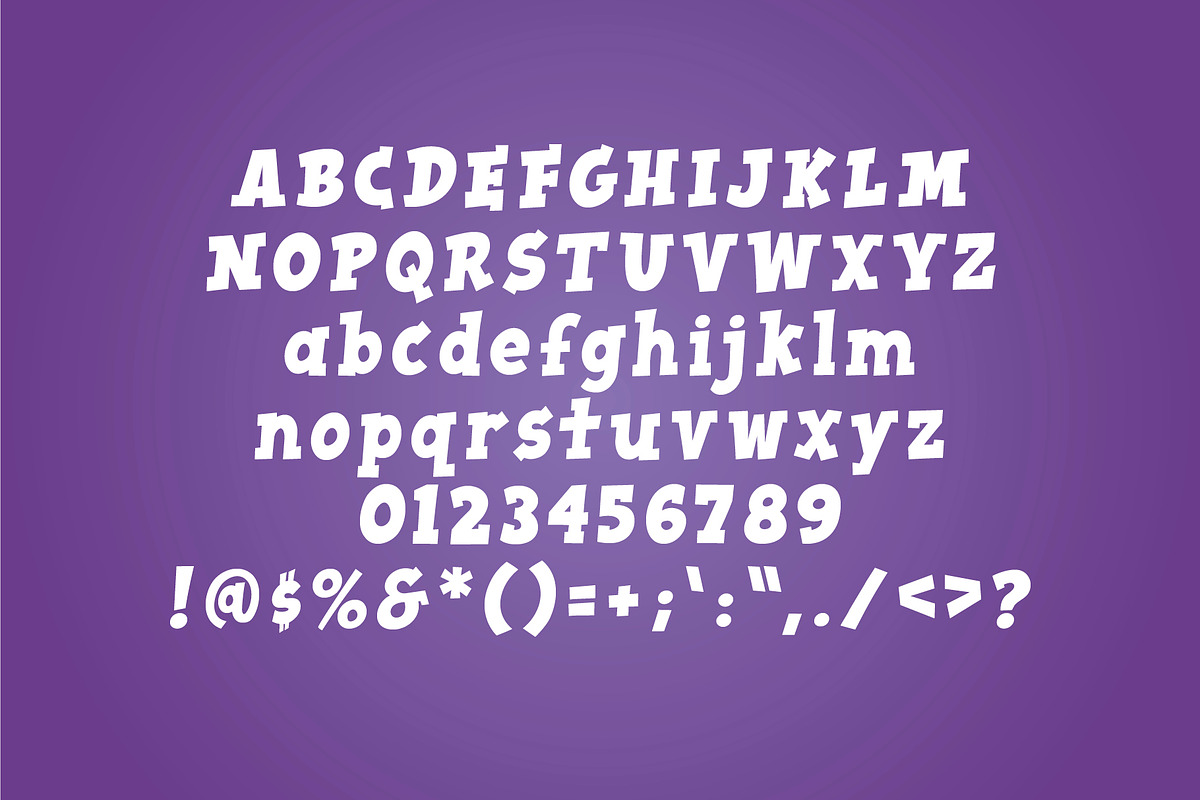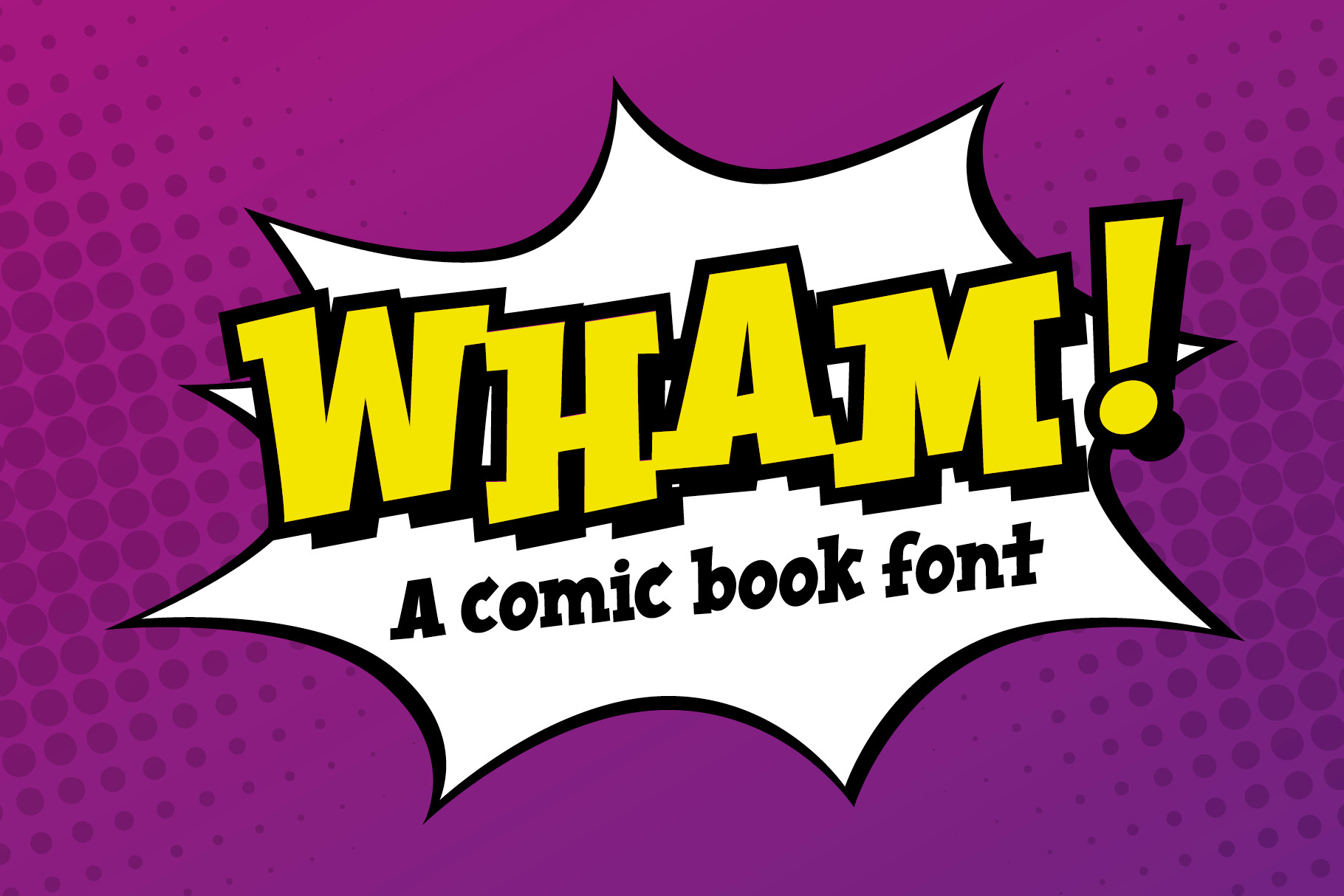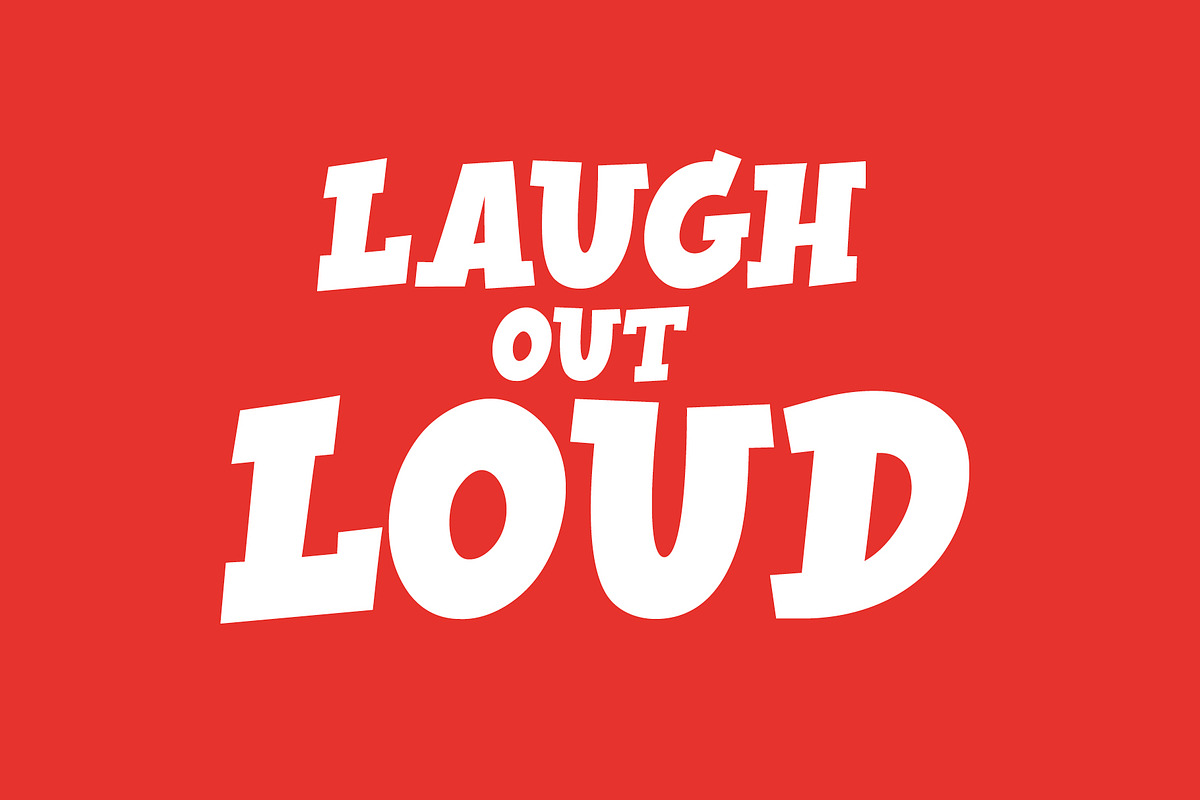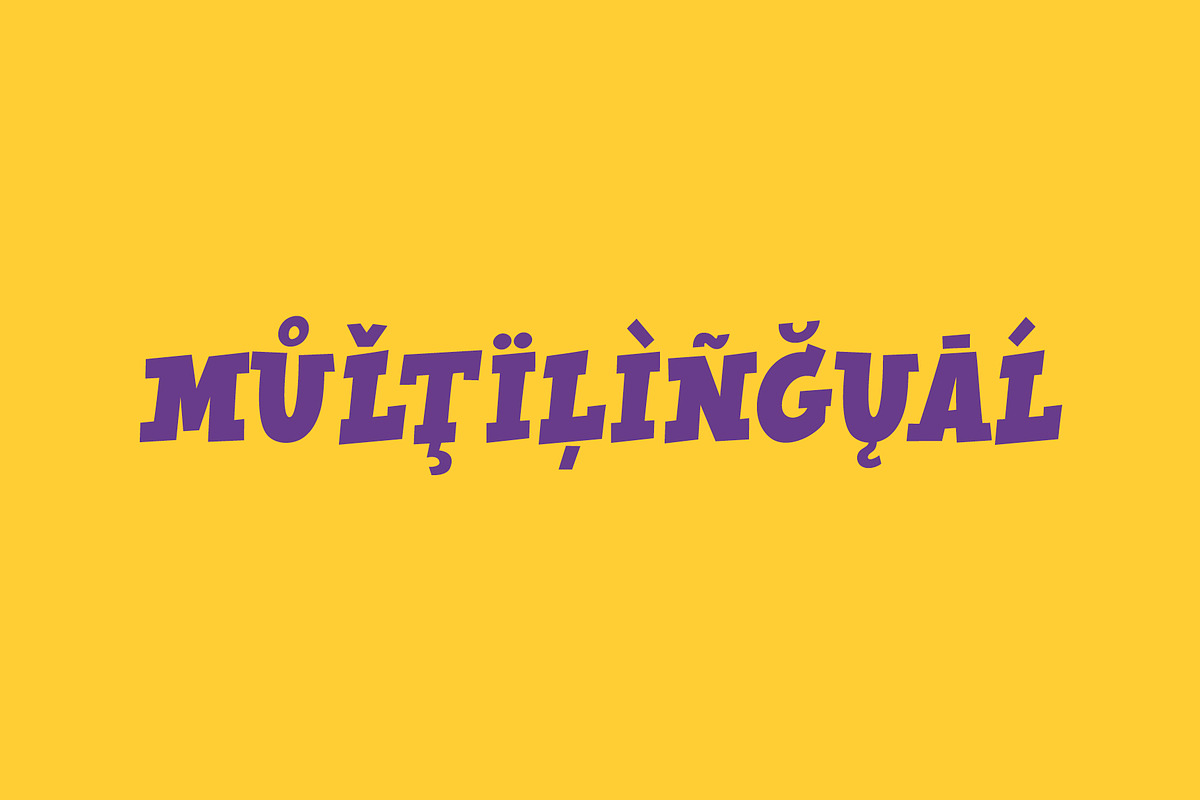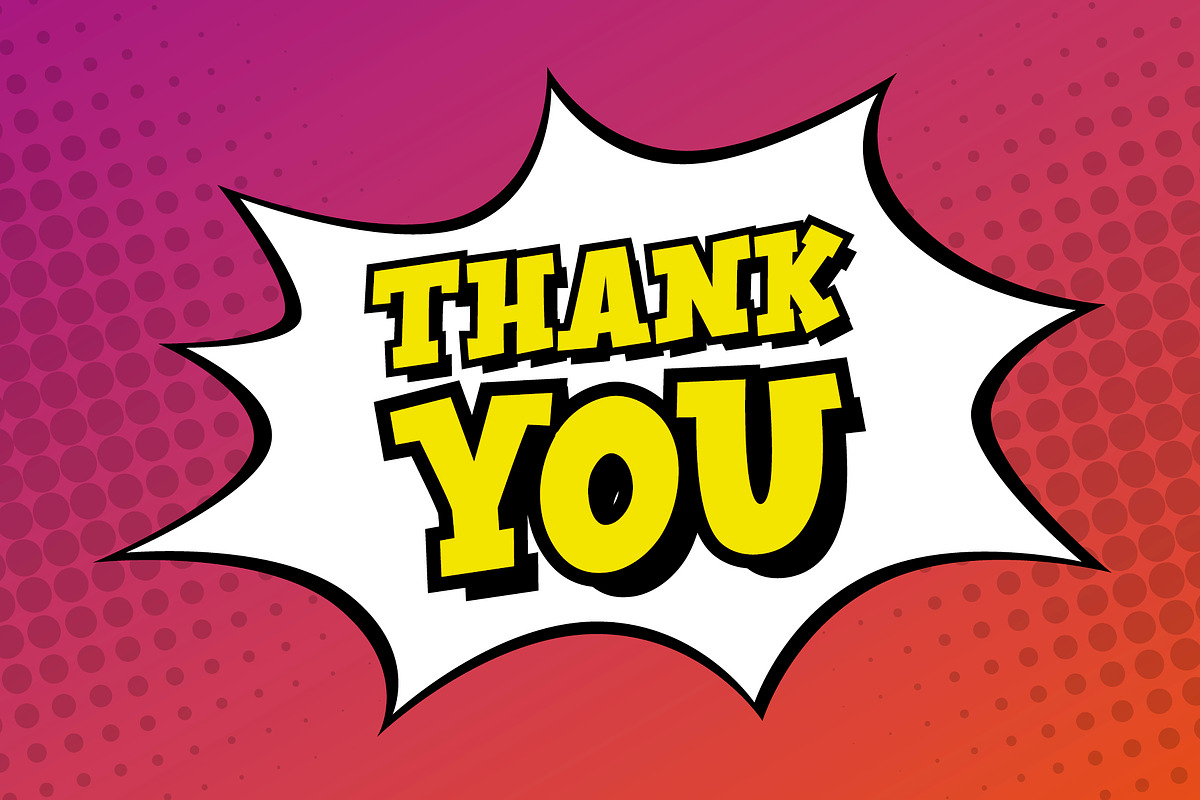
Wham! comic book cartoon font
Wham! The best cartoon font! The best comic book font! A super superhero font!
Is it a bird? Is it a plane? NO, it's a font. It's bold, it's fun and creates a massive impact! It is playful and dynamic. A strong and powerful font. A funny slab serif. Perfect for kids and children's items yet cool and unique for products with bags of character. Great as a headline or display font. Brilliant on t-shirts, tumblers and any other merchandise you could want.
Complete with uppercase, lowercase and special characters. Includes the full European character set including western, central and south eastern glyphs.